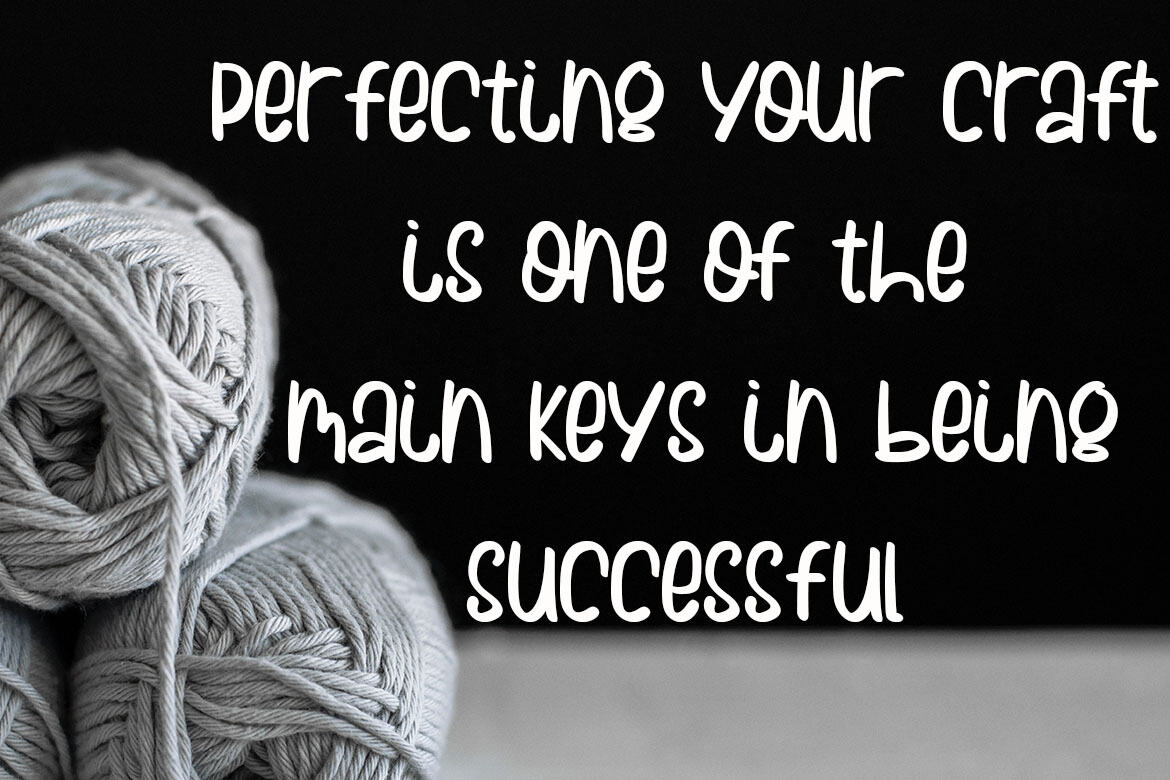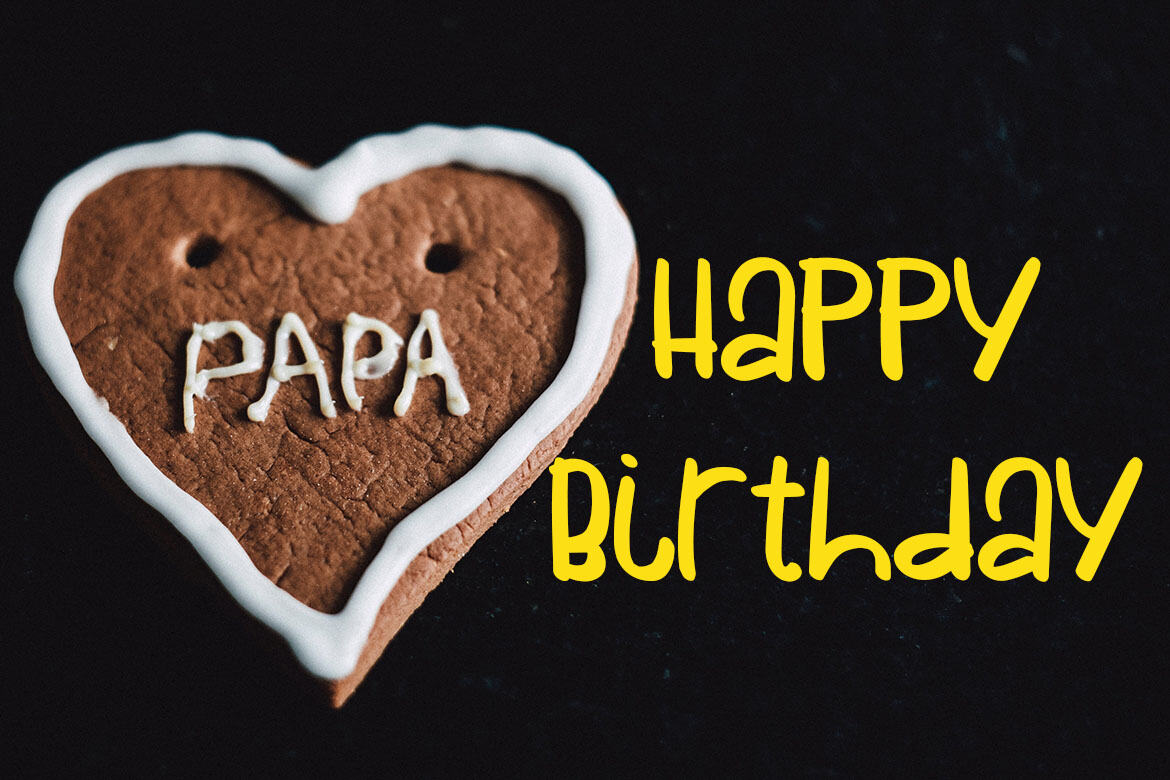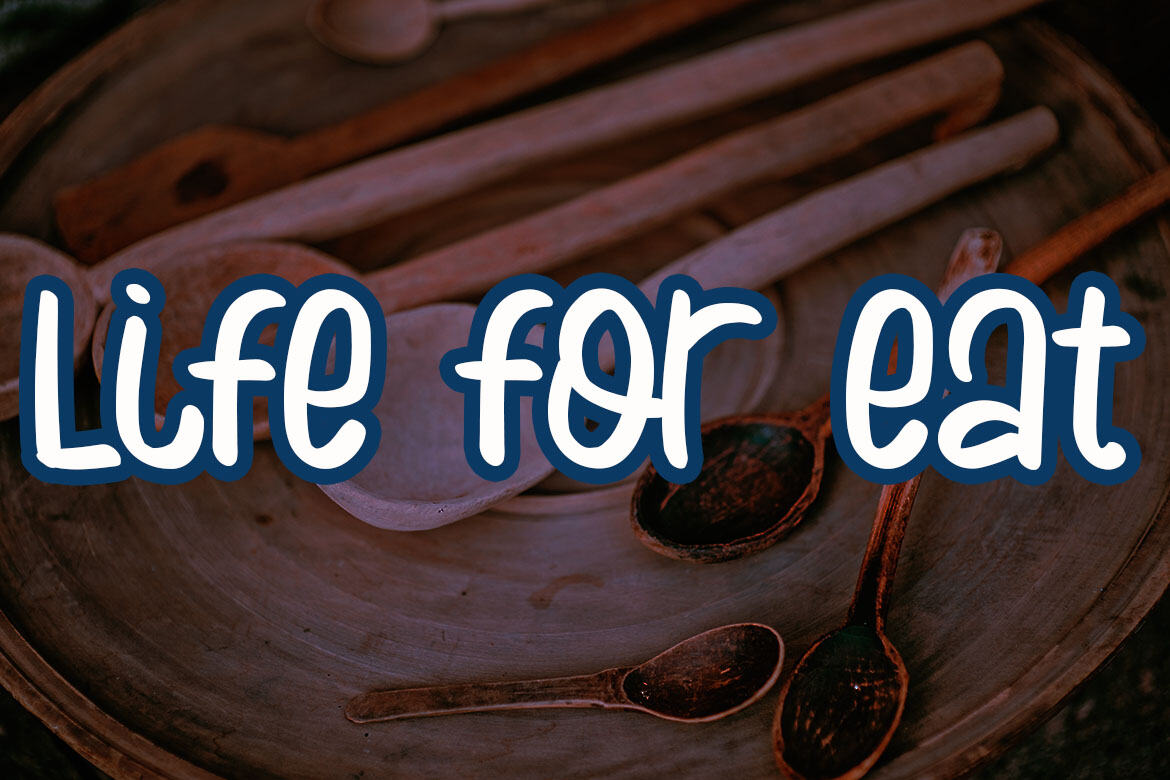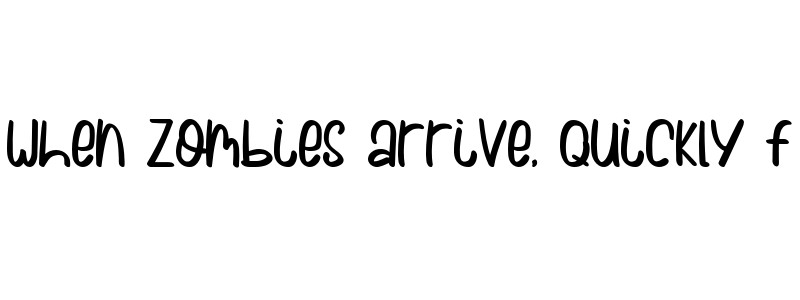
Cokelat Manis FREE Font
Cokelat Manis is playful and cute handwriting font. Use this gorgeous and unique font to bring any DIY project to life.
• support number and punctuation